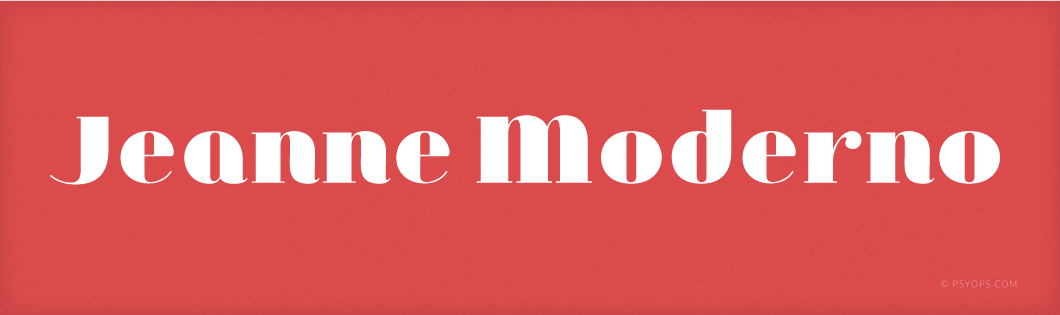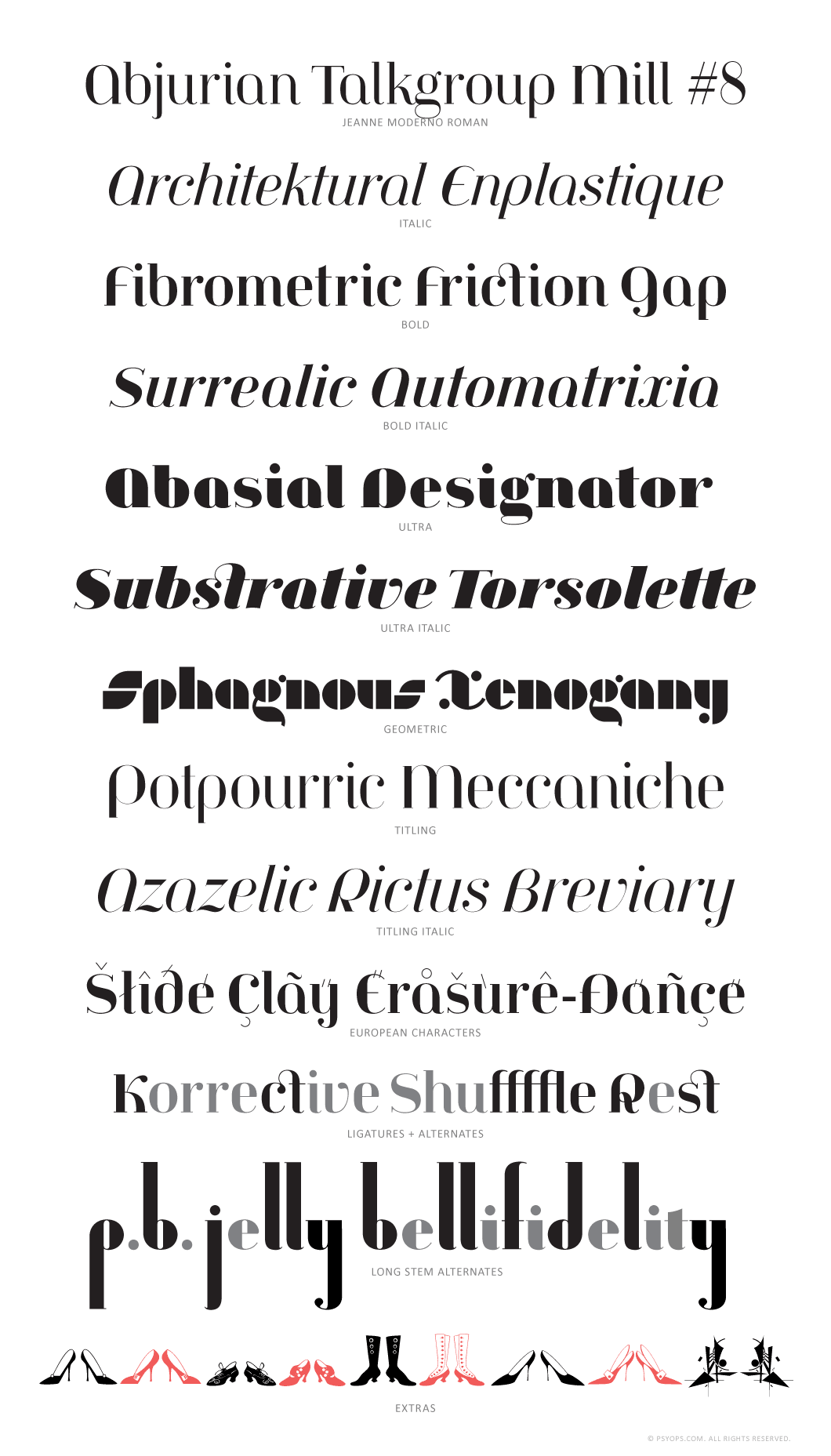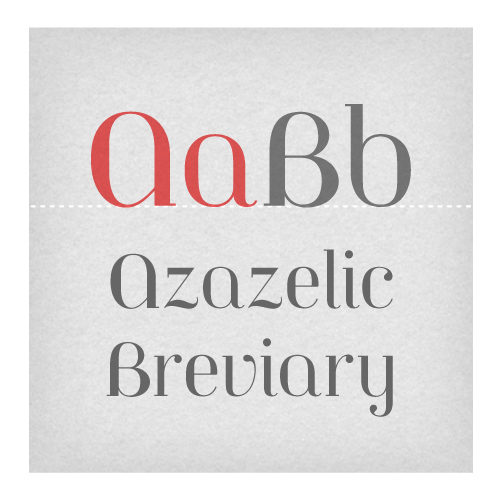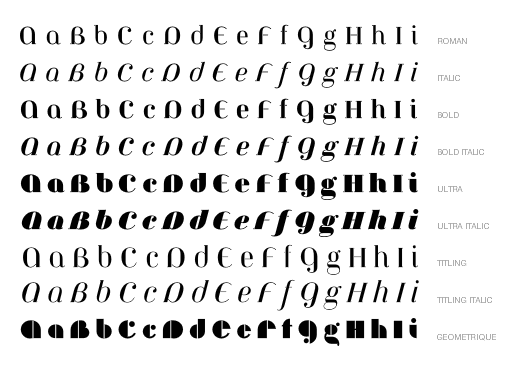
Jeanne Moderno: a revisionary type family.
Jeanne Moderno: a synthesis of Bodoni Italic and 19th Century Ultra-Bold ‘Fat Faces’, distilled with personality taken from early 20th Century Modernists: the Futurists, Dadaists, Suprematists, Constructivists.
Historically, Jeanne Moderno could have appeared on the scene around 1918, after the First World War, when new cultural movements, manifestos, theories and countertheories shaped art, industry and society.
Spatter in a few later influences, from De Stijl, the Bauhaus, the types of Herbert Bayer, Josef Albers, Paul Renner; plus a twist of Art Deco and High Fashion. Jeanne Moderno is a remanifestation of 19th + 20th Century Modernist thinking; traditional + revisionist, raw and elegant!
Jeanne Moderno: best used for magazines, advertising, posters, flyers, fashion reports, letterpress experiments, silkscreen endeavors and exhibitions; not to mention DMV signage, paper money, revolutionary political statements and formal declarations of peace or war.
Jeanne Moderno: about the future, about the past. The Avant-Garde. Humanist geometry + vintage footwear. Form, function, style, art and life.
The Jeanne Moderno fonts include: Western and Eastern European characters, Stylistic Alternates, ligatures, and more.